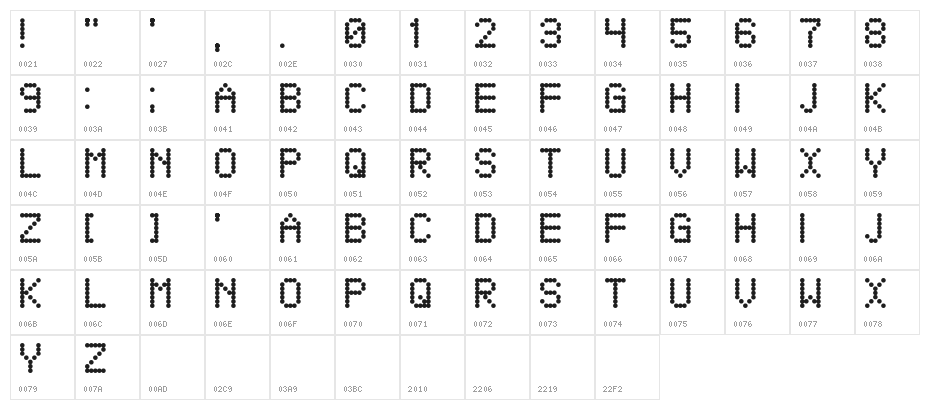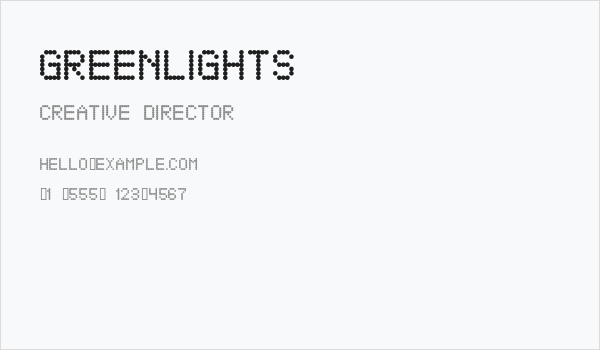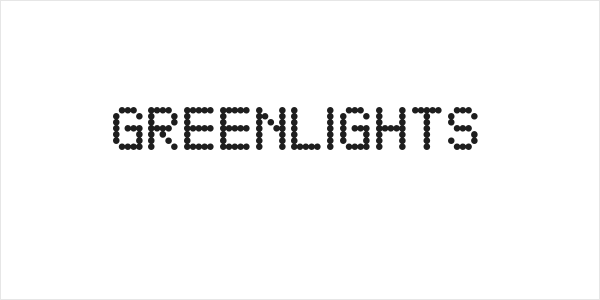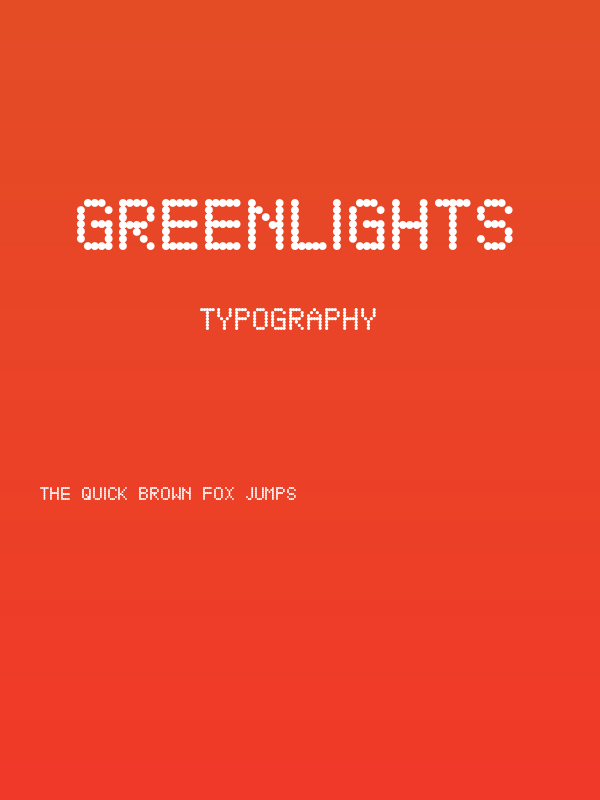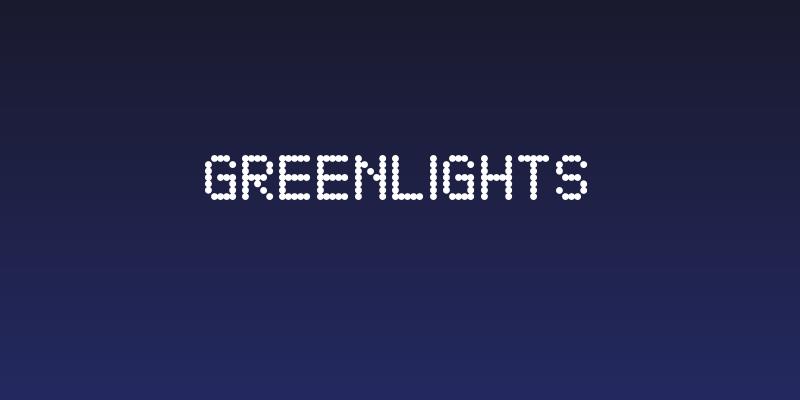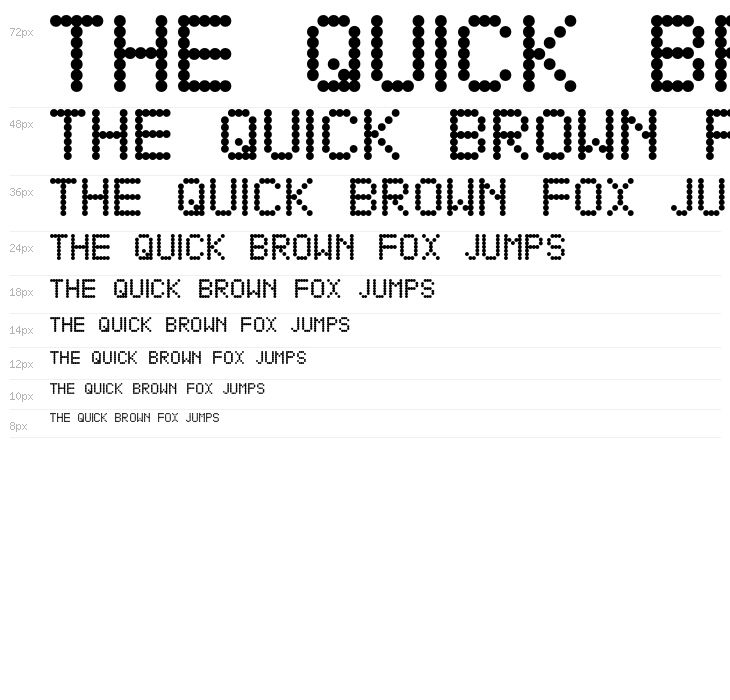
GreenLights Font
GreenLights Description
This font features a unique dot matrix design, where each character is composed of small, evenly spaced dots. The style is reminiscent of digital displays or LED signs, giving it a modern and technological feel. The uppercase and lowercase letters maintain a consistent height and width, ensuring uniformity across the text. Numbers and special characters follow the same dot pattern, providing a cohesive look. The font's geometric precision and clarity make it suitable for digital interfaces or any project requiring a futuristic aesthetic.
| Use Case | Headlines, Logos, Digital displays |
| Proposed Projects | Ideal for digital displays, tech-themed designs, electronic interfaces, and futuristic branding. |